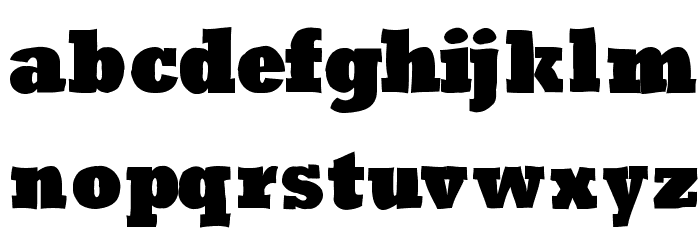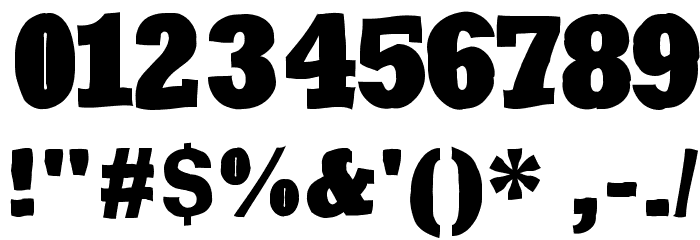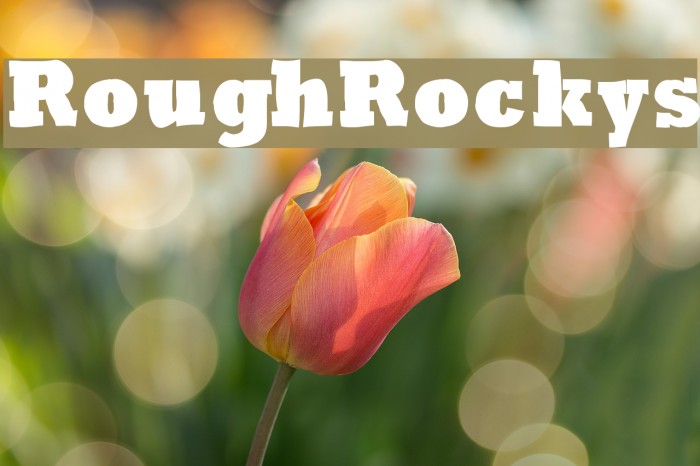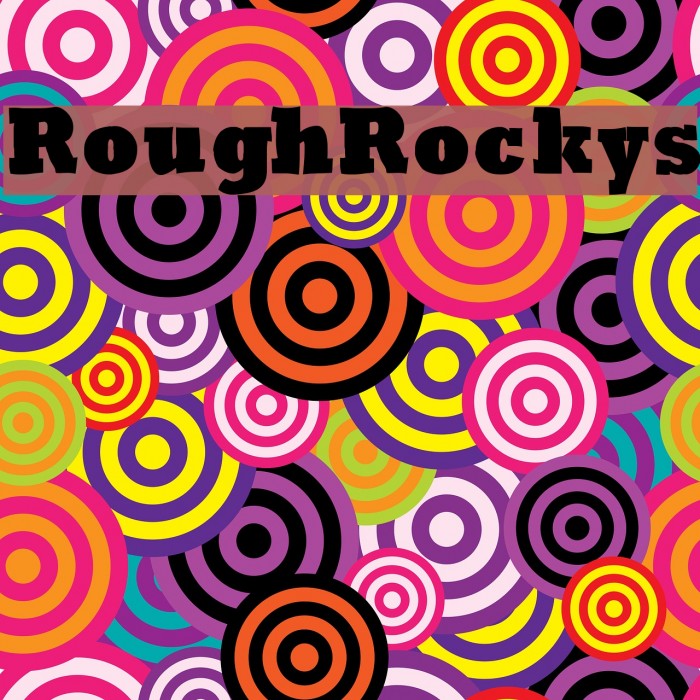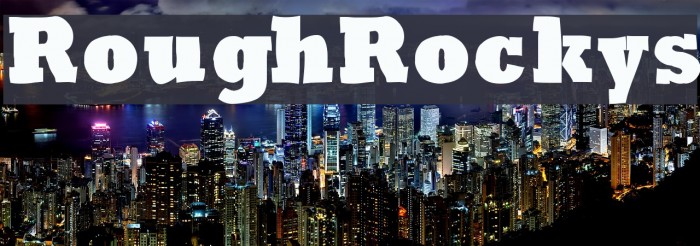
RoughRockys Font
This font features a bold and rugged style with a strong presence. The characters have a rough, textured appearance, giving them a hand-crafted feel. The uppercase and lowercase letters are consistent in their boldness, with slightly uneven edges that add to the rustic charm. The numbers and special characters maintain the same bold and rough aesthetic, ensuring uniformity across all glyphs. This font is ideal for projects that require a strong, impactful look with a touch of vintage or western flair.
A bold, rugged font with a textured, hand-crafted appearance.
- Proposed Projects: Ideal for posters, logos, branding, and any design requiring a strong, vintage aesthetic.
- Overall Style: Vintage